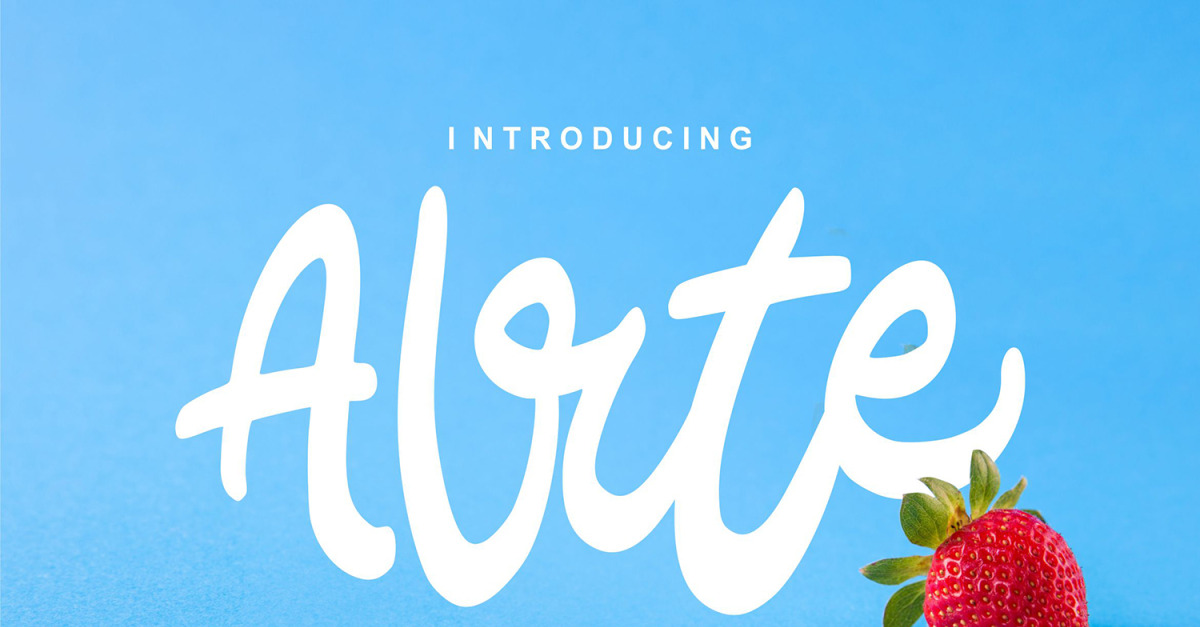
Alrte | Modern Scriptotype Font
**Alrte | Modern Scriptotype Font** with a calligraphy style, So beautiful on invitation like greeting cards, branding materials, business cards, quotes, posters, and more!